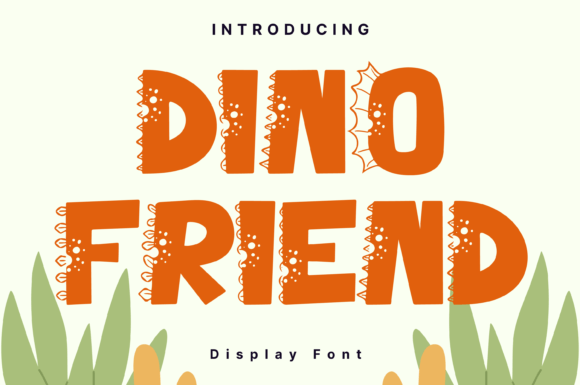
Discover the Prehistoric Charm of Dino Friend Font
Who hasn’t been stuck in a creative rut, staring at a blank page, waiting for that spark of inspiration to strike? For designers, it’s a familiar feeling, but one that can be easily ignited with the right tools. That’s where Dino Friend Font comes in – a whimsical and clean display font that’s about to take your crafty ideas to the next level.
With its unique style of characters, Dino Friend Font is perfect for adding a touch of personality to your letterheads, titles, and stationery. Its versatility makes it a valuable asset for designers, allowing you to experiment with different looks and feels without sacrificing readability. Whether you’re working on a personal project or a client brief, Dino Friend Font is sure to bring a smile to your face and a dash of creativity to your work.
- Font Family: Dino Friend Font offers a unique, playful font family with a range of styles, including bold, italic, and regular.
- Unique Characteristics: The font’s distinctive dinosaur-inspired design elements, such as textured patterns and whimsical shapes, add a touch of fun and personality to any design.
Dino Friend Font Review
I recently had the chance to work with the Dino Friend Font, and I must say it’s a mixed bag. Let’s dive into what works well and what doesn’t.
- The font’s quirky, playful nature is perfect for kids’ content, educational materials, or any project that needs a fun twist.
- The font is highly customizable, with a wide range of styles and colors to choose from.
- The font’s unique design elements, such as the dinosaur silhouettes, add a touch of whimsy and personality to any project.
- The font can be overwhelming in large blocks of text, so use it sparingly to avoid visual fatigue.
- The font’s uniqueness can also make it difficult to read in certain contexts, such as in small text sizes or on low-resolution screens.
- The font’s customizability can be both a blessing and a curse – it’s easy to overdo it and end up with a design that’s too busy or cluttered.
Overall, the Dino Friend Font is a great choice for projects that need a fun, playful vibe. However, it’s essential to use it judiciously and balance its unique design elements with clear typography and a clean design. With some restraint and creativity, this font can add a lot of personality to your designs.
For best results, use Dino Friend Font in headings and titles to create a cohesive look.
Use Dino Friend Font for children’s book illustrations, educational materials, or gaming designs. It’s also suitable for branding and marketing materials, such as logos and business cards.
Experiment with bold and italic styles to add emphasis to your text. You can also use Dino Friend Font in conjunction with other fonts to create a unique and playful look.